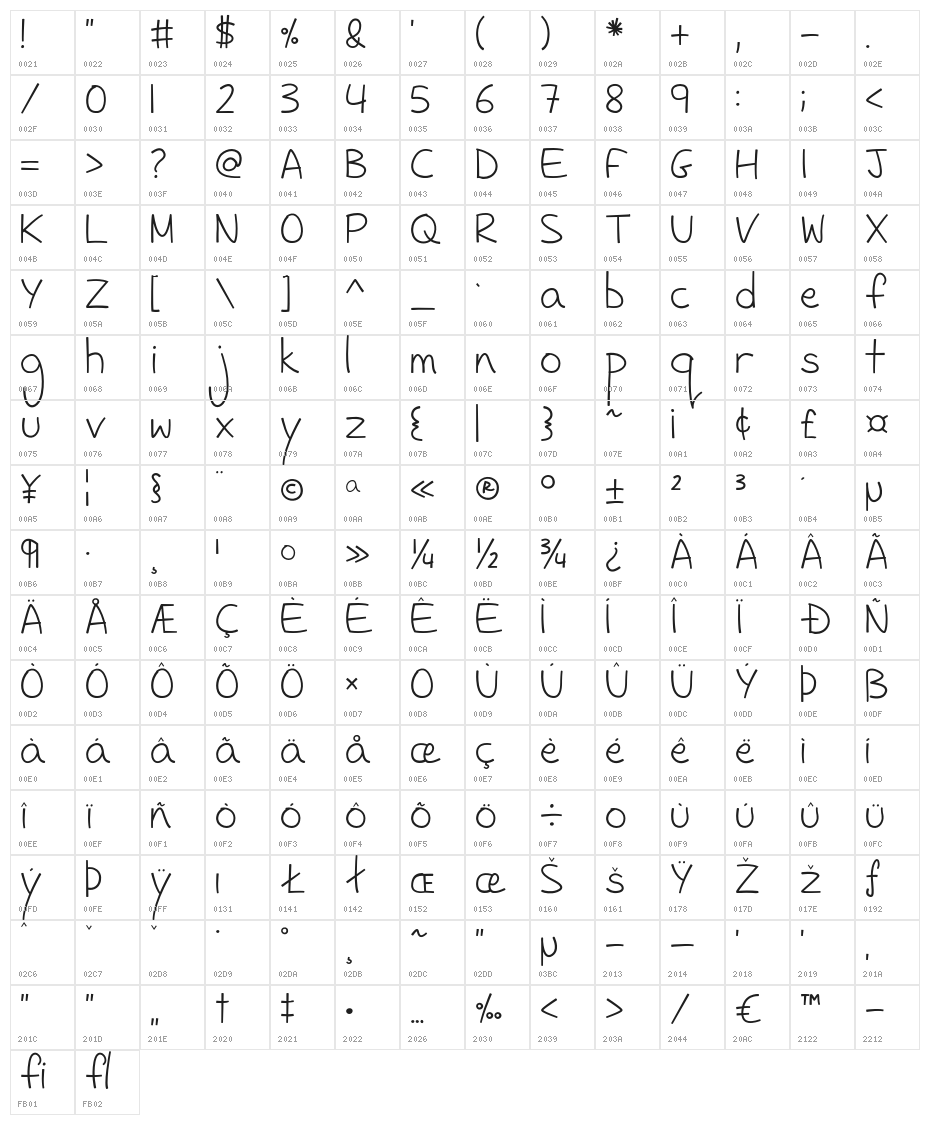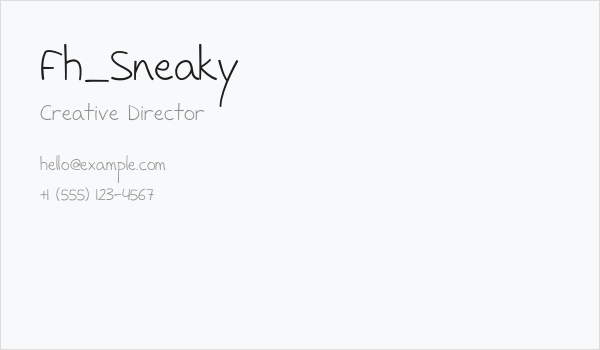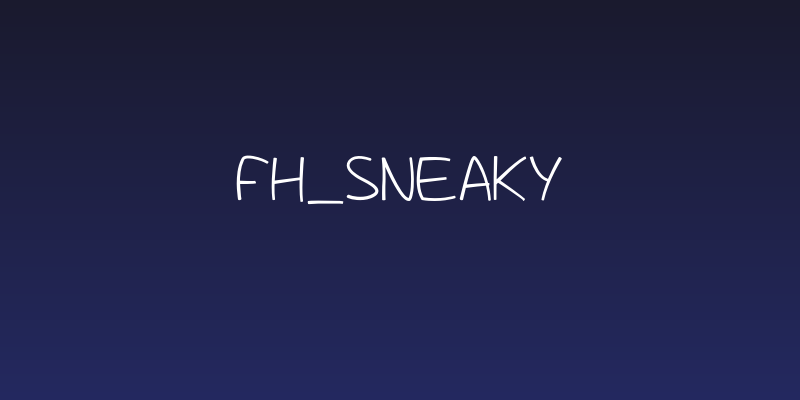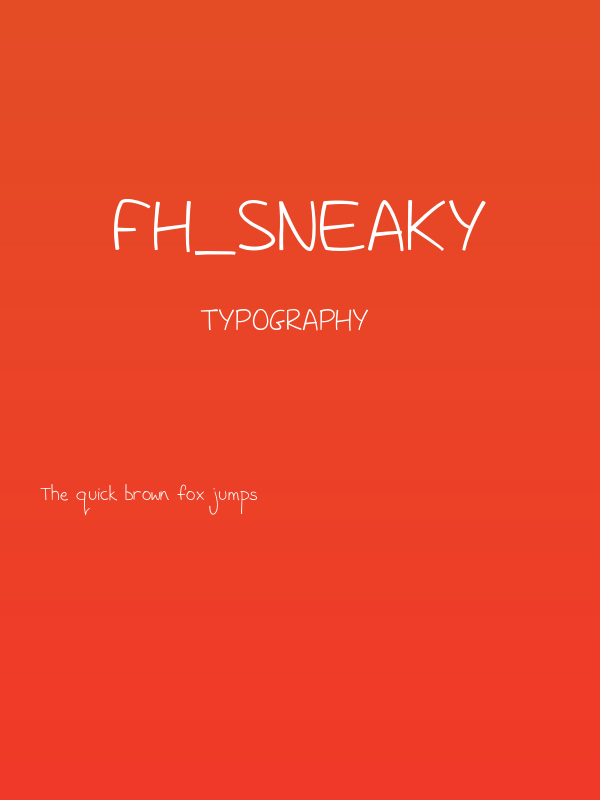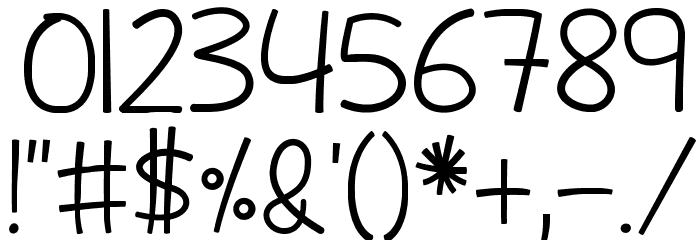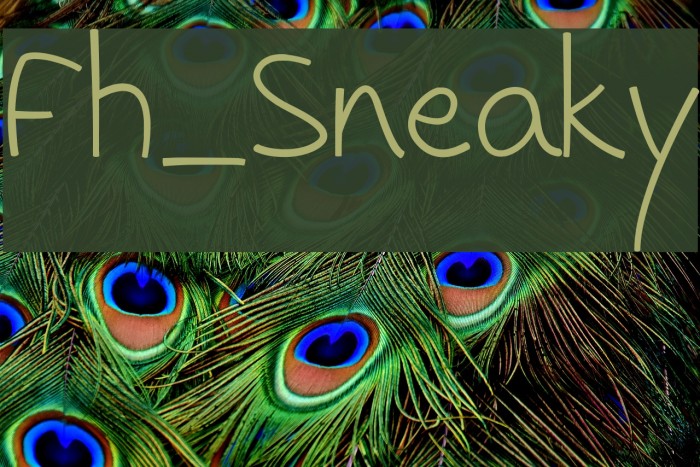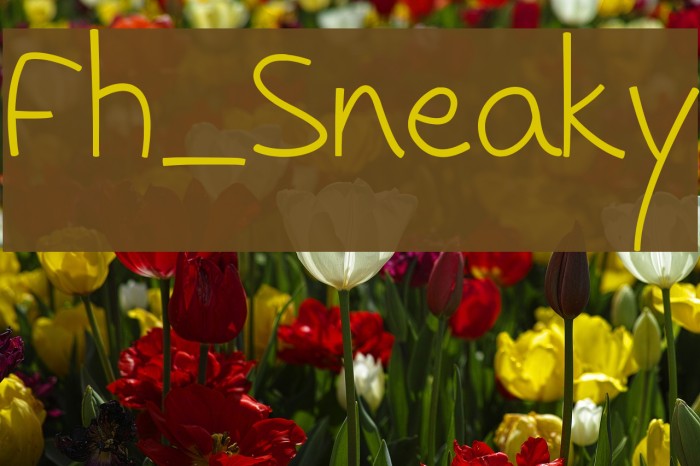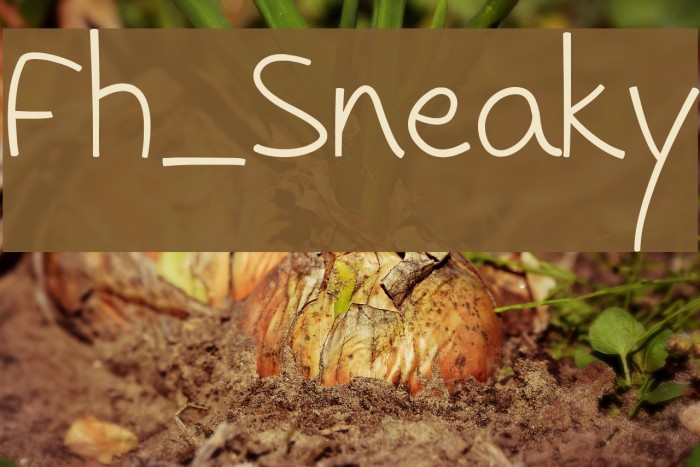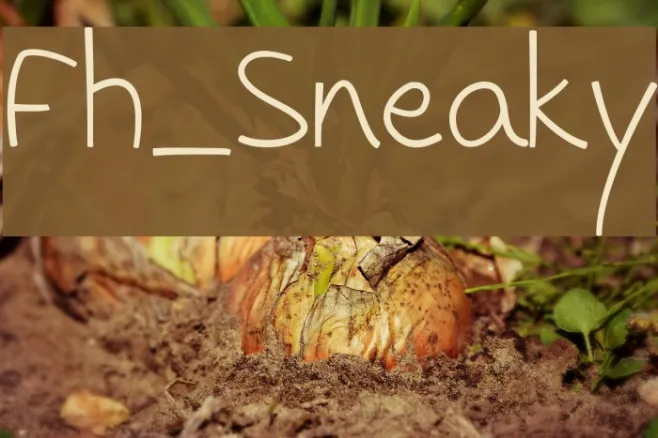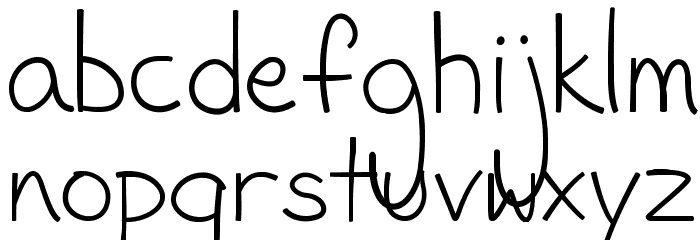
Fh_Sneaky Font
Fh_Sneaky Description
This playful and casual font features a handwritten style with smooth, flowing curves and a slightly irregular baseline, giving it a friendly and approachable appearance. The characters are well-spaced, maintaining readability while adding a touch of whimsy. The uppercase letters are bold and consistent, while the lowercase letters exhibit a charming irregularity, enhancing the font's informal nature. Numbers and special characters are crafted to match the overall style, making this font versatile for various creative projects.
| Proposed Projects | Ideal for children's books, greeting cards, casual branding, and social media graphics. |